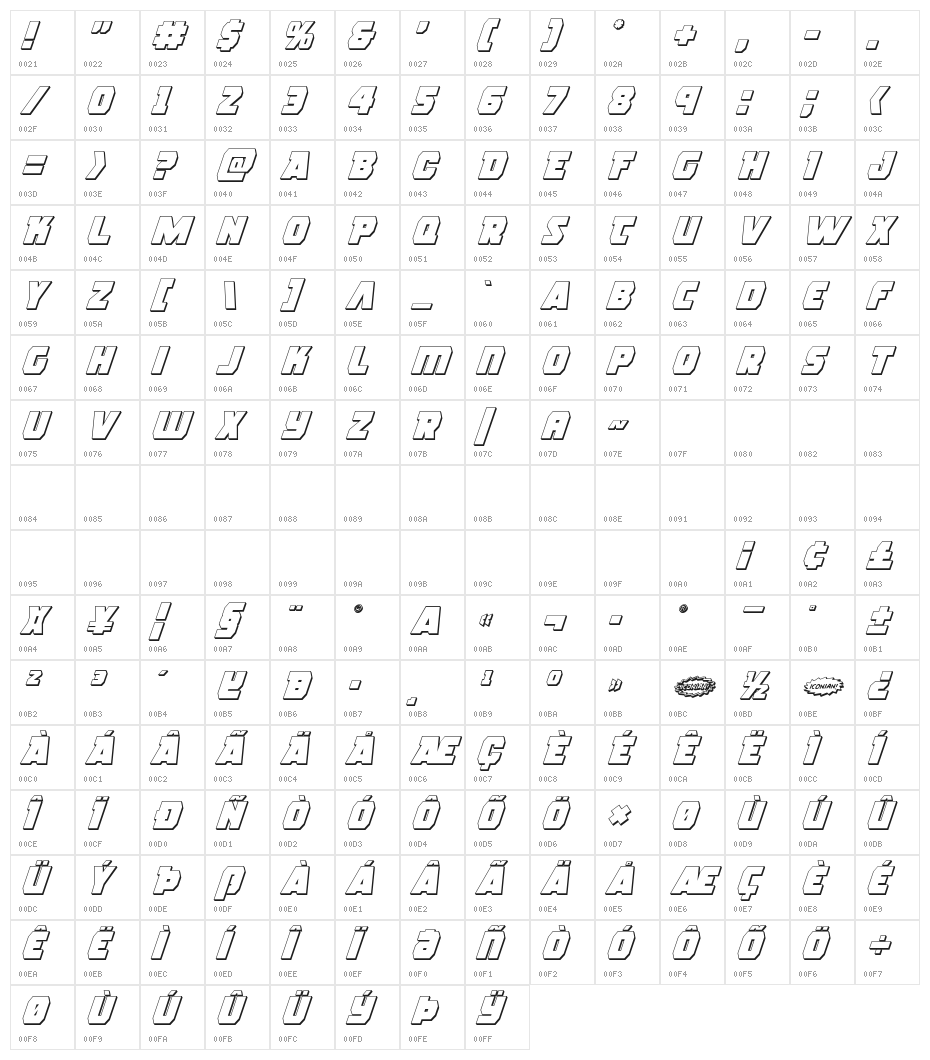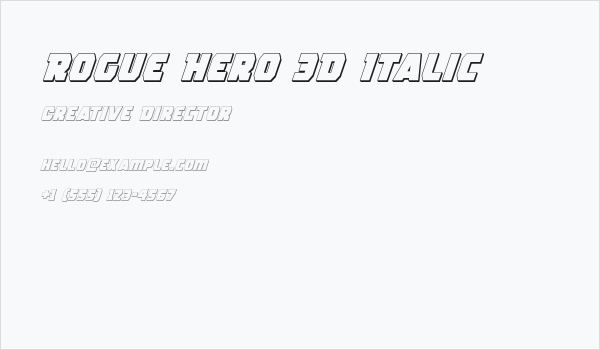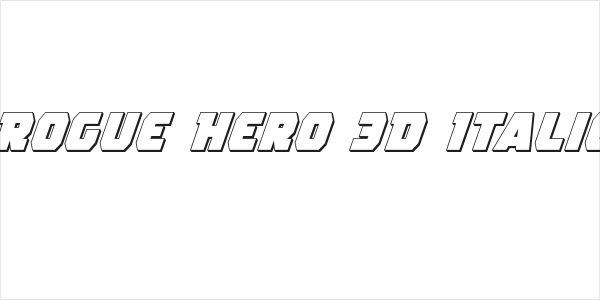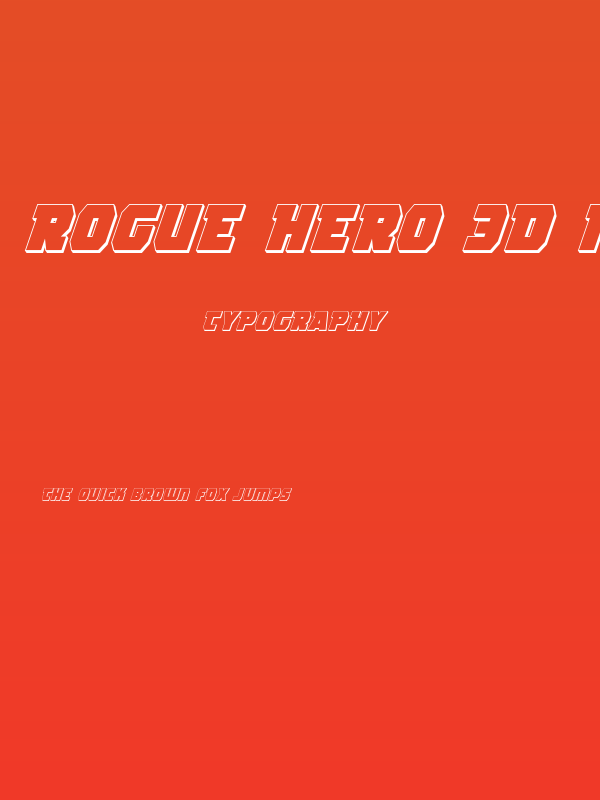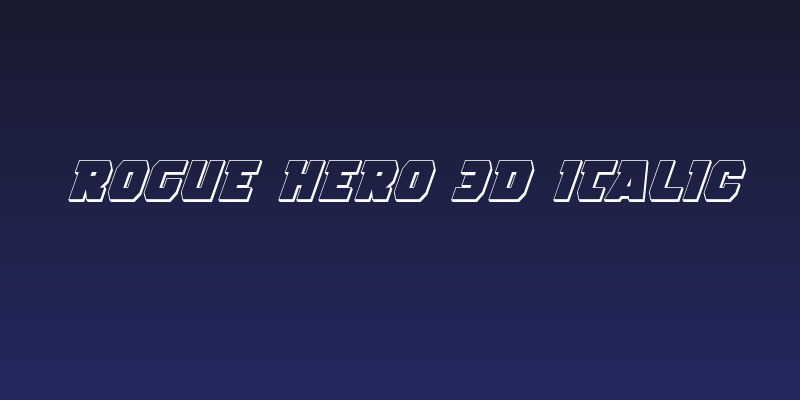
Rogue Hero 3D Italic Font
Rogue Hero 3D Italic Description
This font features a bold, three-dimensional design with an italic slant, giving it a dynamic and futuristic appearance. The characters are outlined, creating a striking contrast between the solid interior and the bold outlines. The uppercase and lowercase letters maintain a consistent style, with sharp angles and a sense of movement. The numbers and special characters follow the same design principles, ensuring uniformity across all glyphs. This font's unique style makes it ideal for projects that require a modern and impactful look.
Proposed ProjectsIdeal for video game titles, movie posters, and branding that requires a modern, dynamic look.